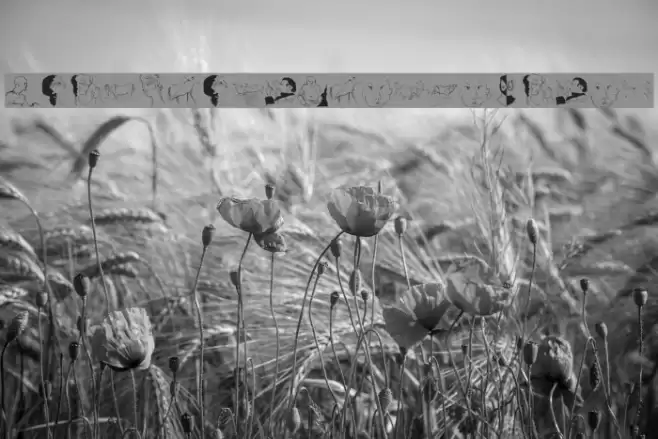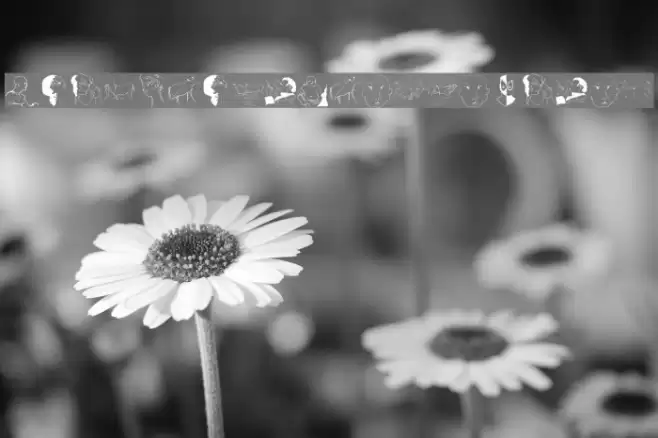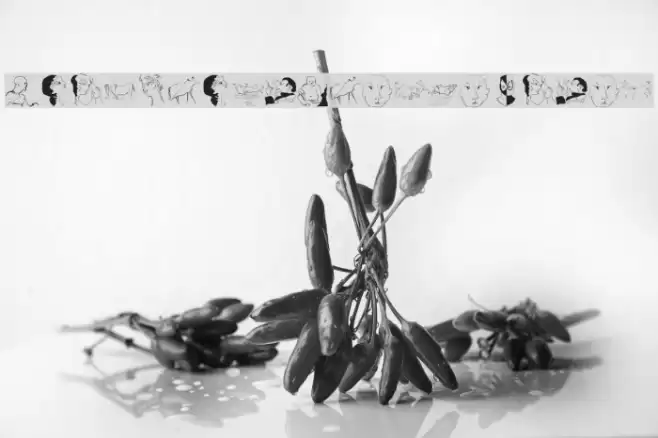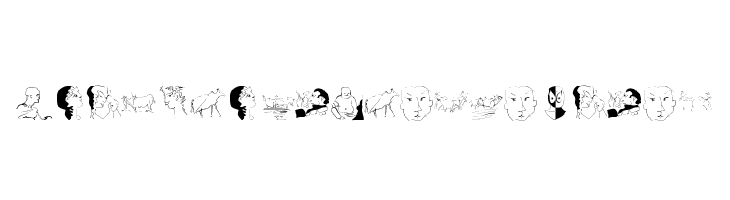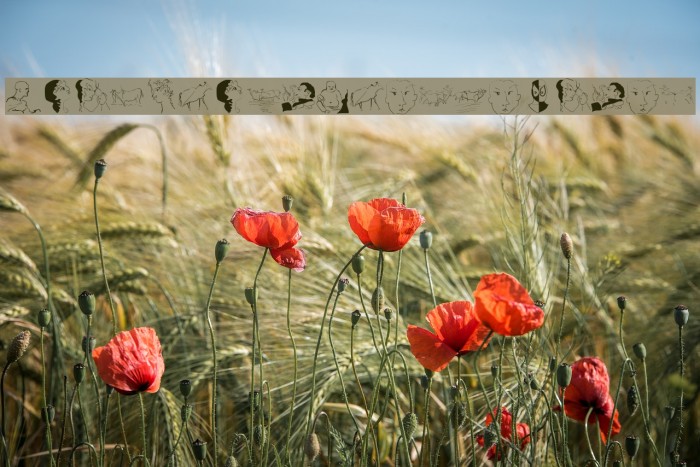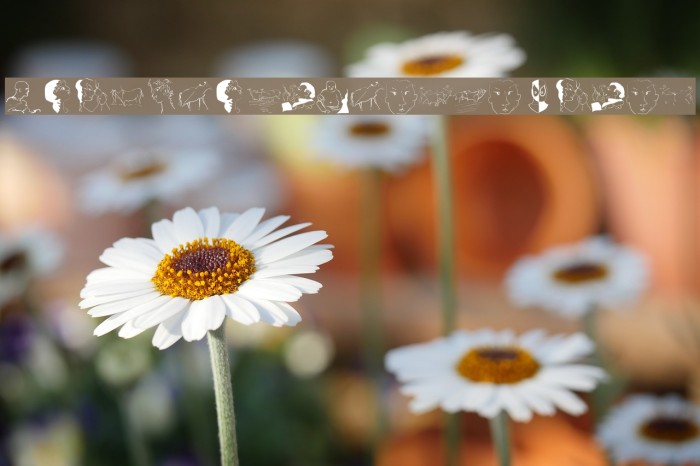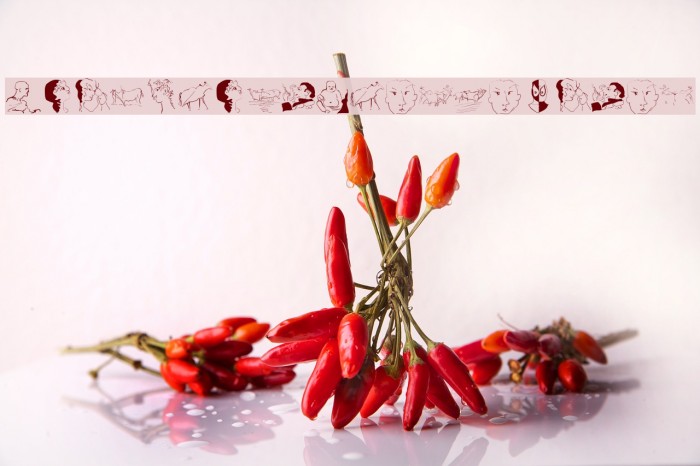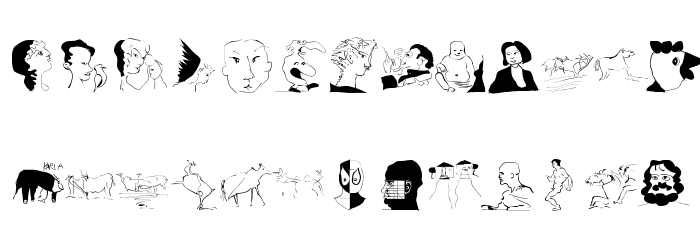
WacoGraphireSketches Font
WacoGraphireSketches Description
A highly decorative and illustrative font composed of hand-drawn sketches, each character represented by unique line-art illustrations of faces, animals, and abstract figures. The glyphs are expressive and artistic, prioritizing visual storytelling over traditional letterform clarity.
An artistic, sketch-based illustrative font with unique drawings for each character from Uncategorized fonts.
- Proposed Projects: Art posters, album covers, creative branding, editorial illustrations, children’s books, and experimental graphic design.
- Overall Style: Decorative, Artistic, Sketch
- Use Case: Display, Art projects, Logos, Posters